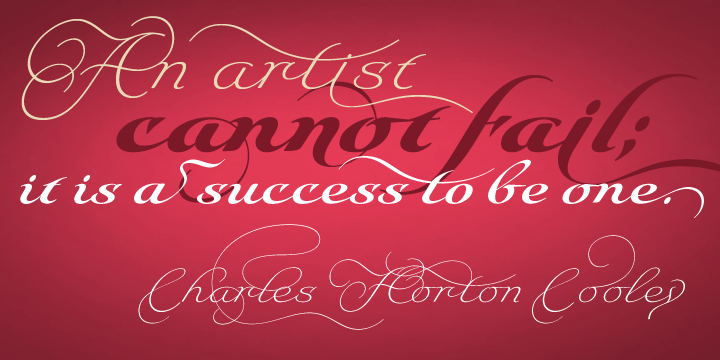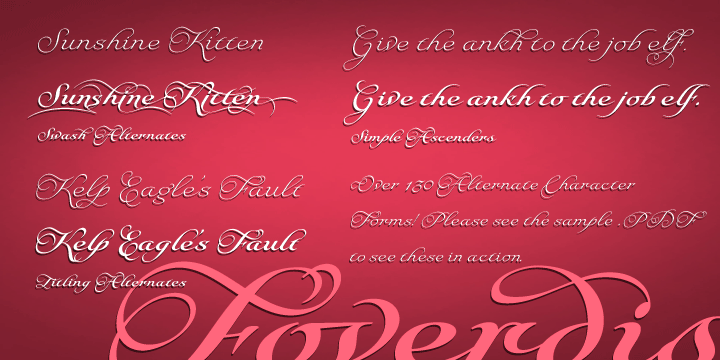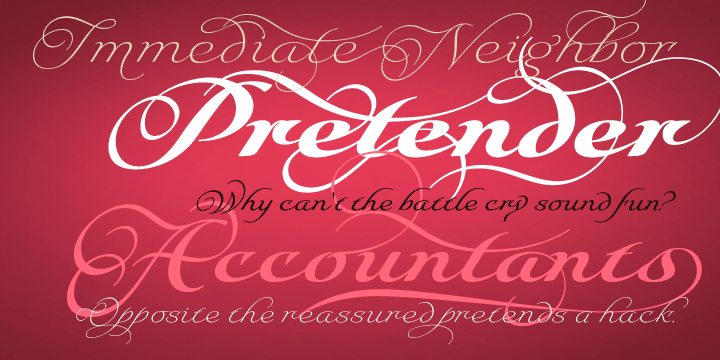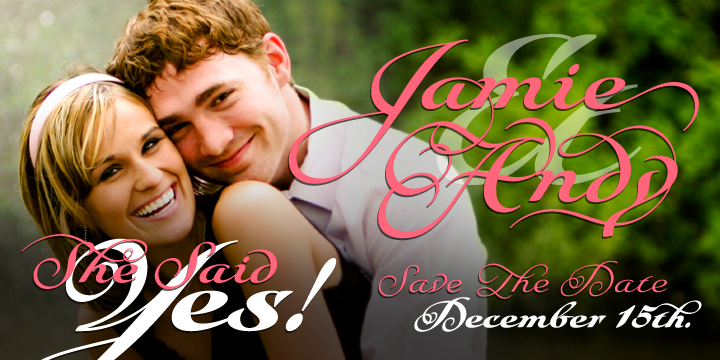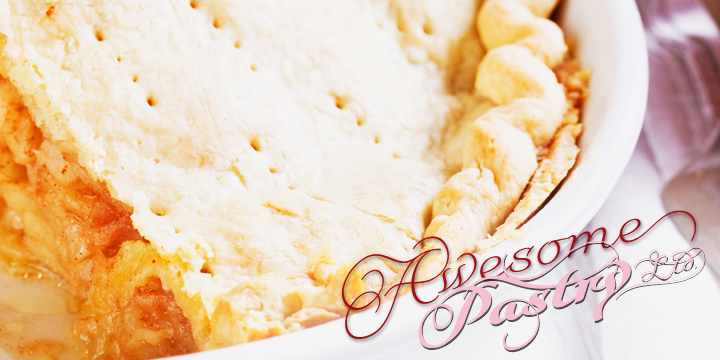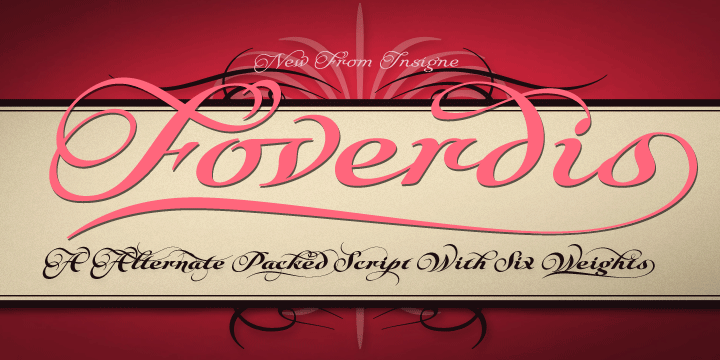
Foverdis is a script font family. This typeface has six styles and was published by Insigne Design.
Foverdis is a versatile and powerful ornate script face. Foverdis features flowing hand lettering with tall and graceful ascenders. The face offers a wide array of weights, from the powerful Black weight to the graceful Thin to unique hairline.